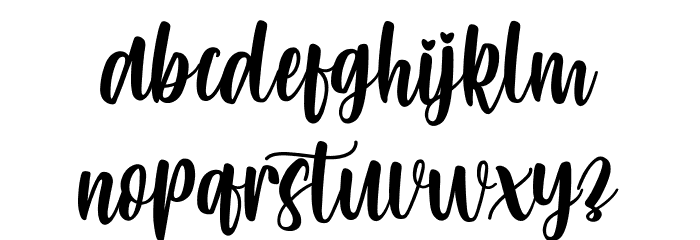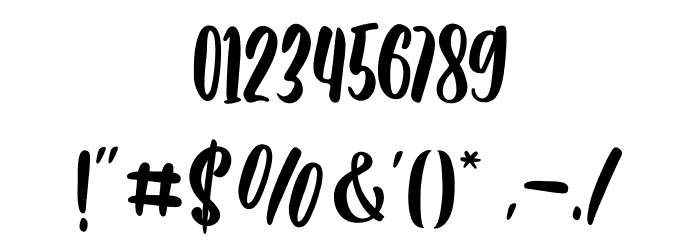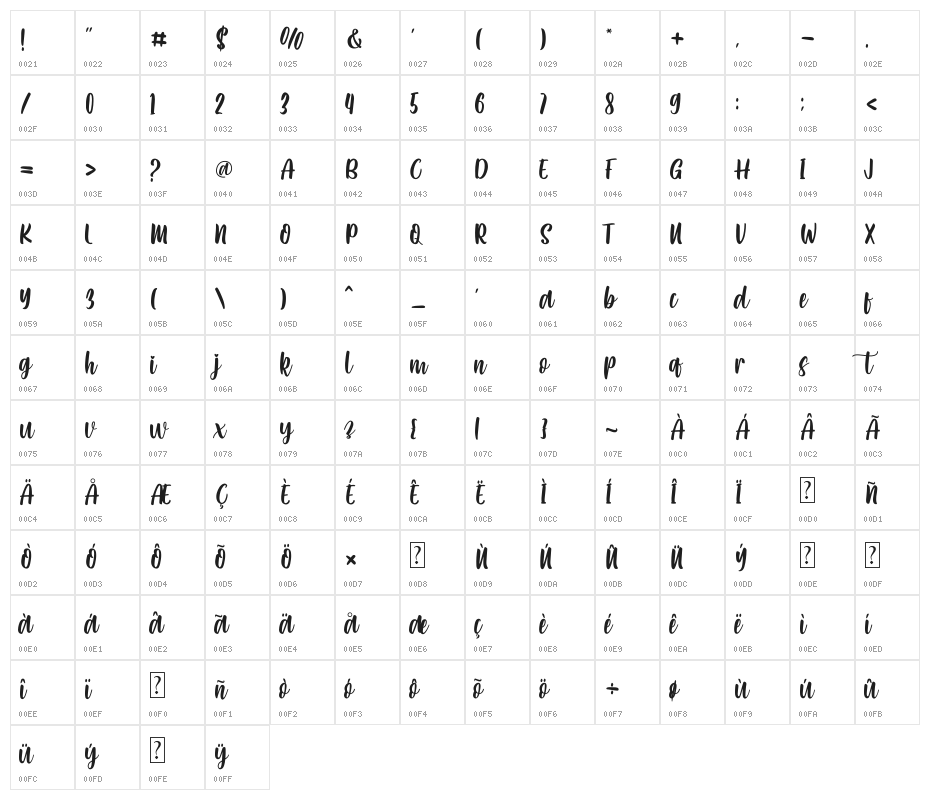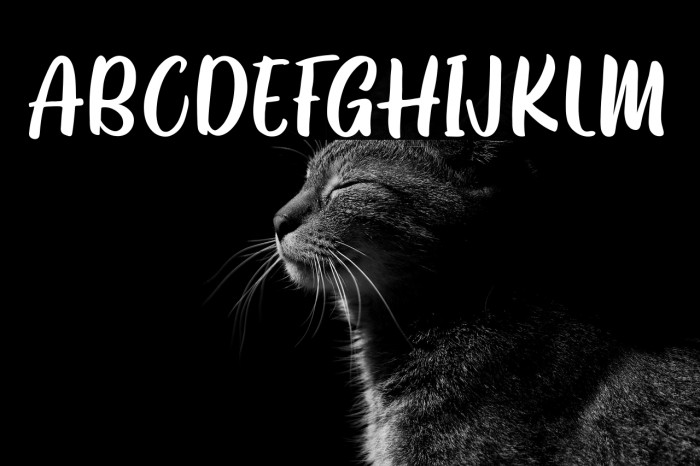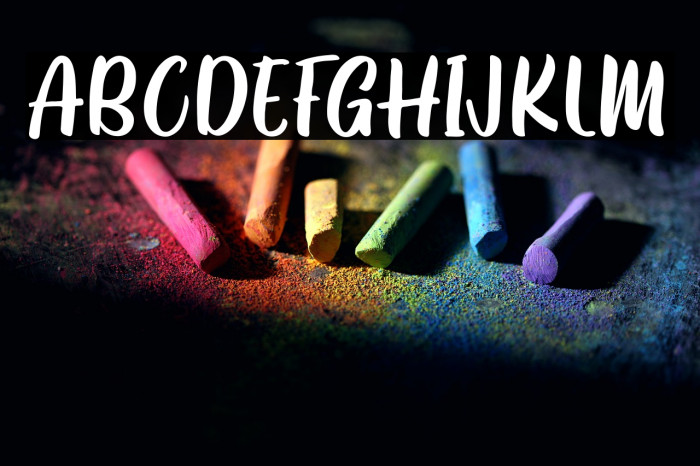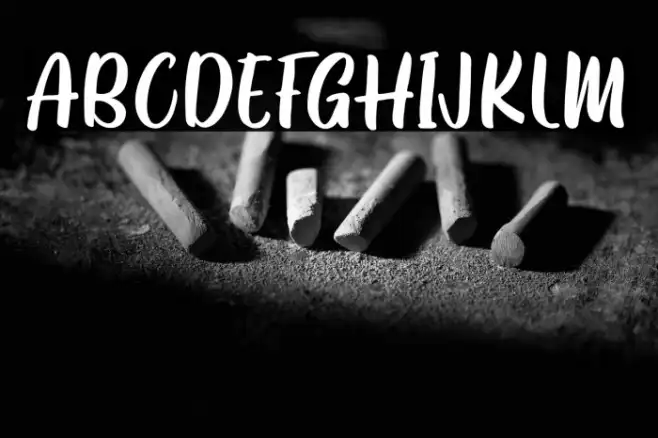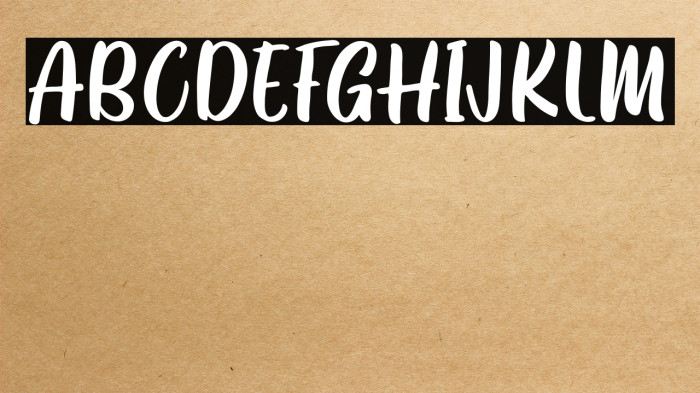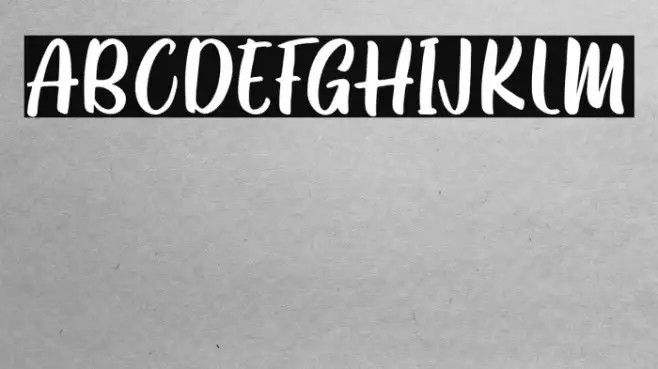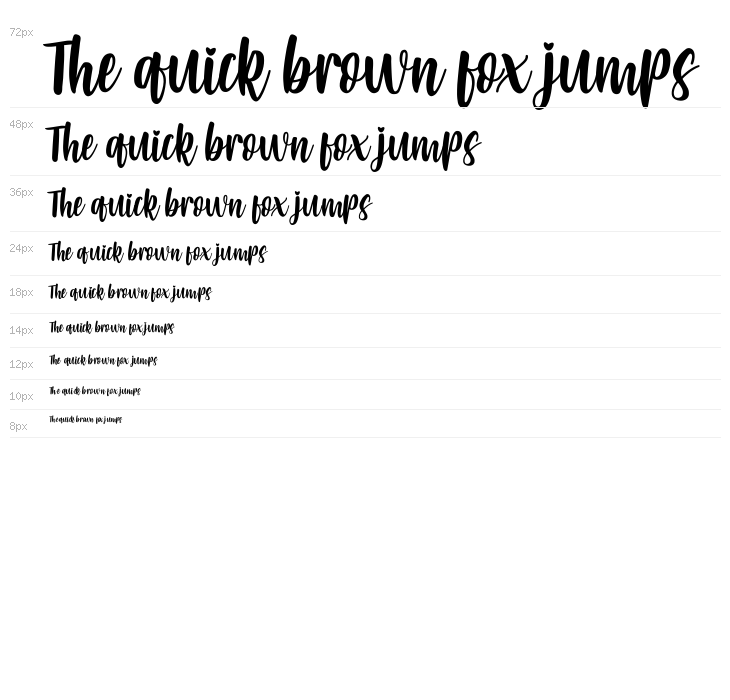
love mom Font
This font features a playful and flowing script style, characterized by its bold, brush-like strokes. The uppercase letters are slightly more structured, maintaining a consistent height, while the lowercase letters exhibit a charming, handwritten quality with varying baselines and occasional flourishes. The numerals are clear and bold, matching the overall aesthetic of the alphabet. Special characters are creatively integrated, maintaining the font's lively and expressive nature. This font is ideal for projects that require a personal touch, such as invitations, greeting cards, or branding materials.
A bold, playful script font with a brush-like, handwritten style.
- Font: love mom
- Proposed Projects: Ideal for invitations, greeting cards, branding, and personal projects.
- Category: Script
- Use Case: Logos, Headlines, Invitations